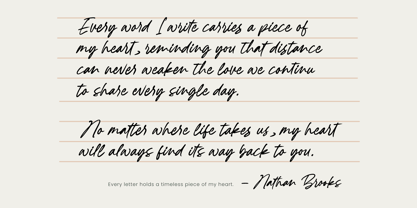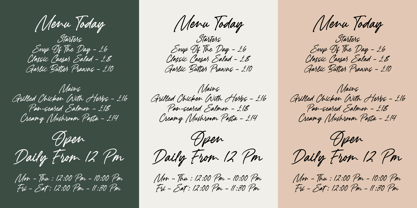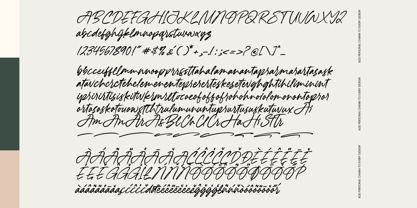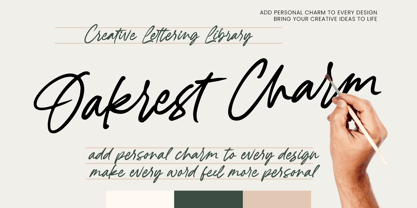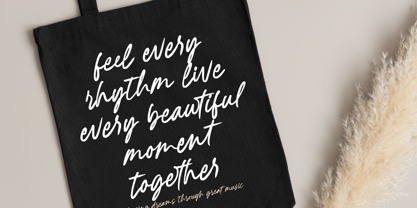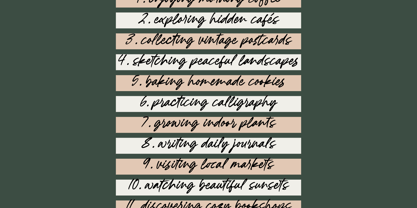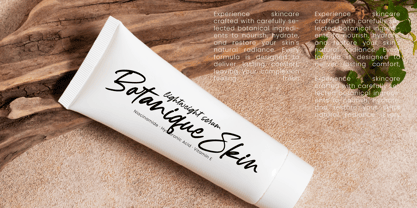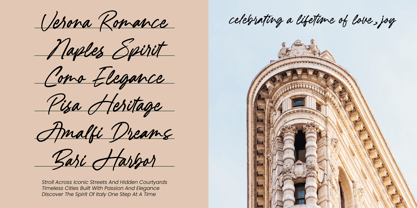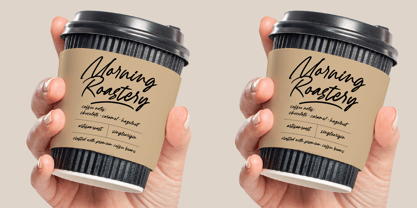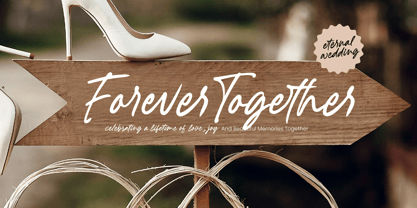
Oakrest Charm
Oakrest Charm elevates designs with effortless elegance and organic warmth. It transforms simple typography into a captivating visual narrative.
Inspired by fluid felt-tip strokes, this font captures a tranquil studio atmosphere. Its rhythmic motion provides an authentic, handcrafted feel.
This modern handwritten script emphasizes luxury typography and signature style for maximum branding impact. It offers an editorial font aesthetic that balances grace with professional quality.
Perfectly aligned with the modern script trend, it satisfies the need for character-driven typography. It stands out among editorial display fonts by fostering personal connection.